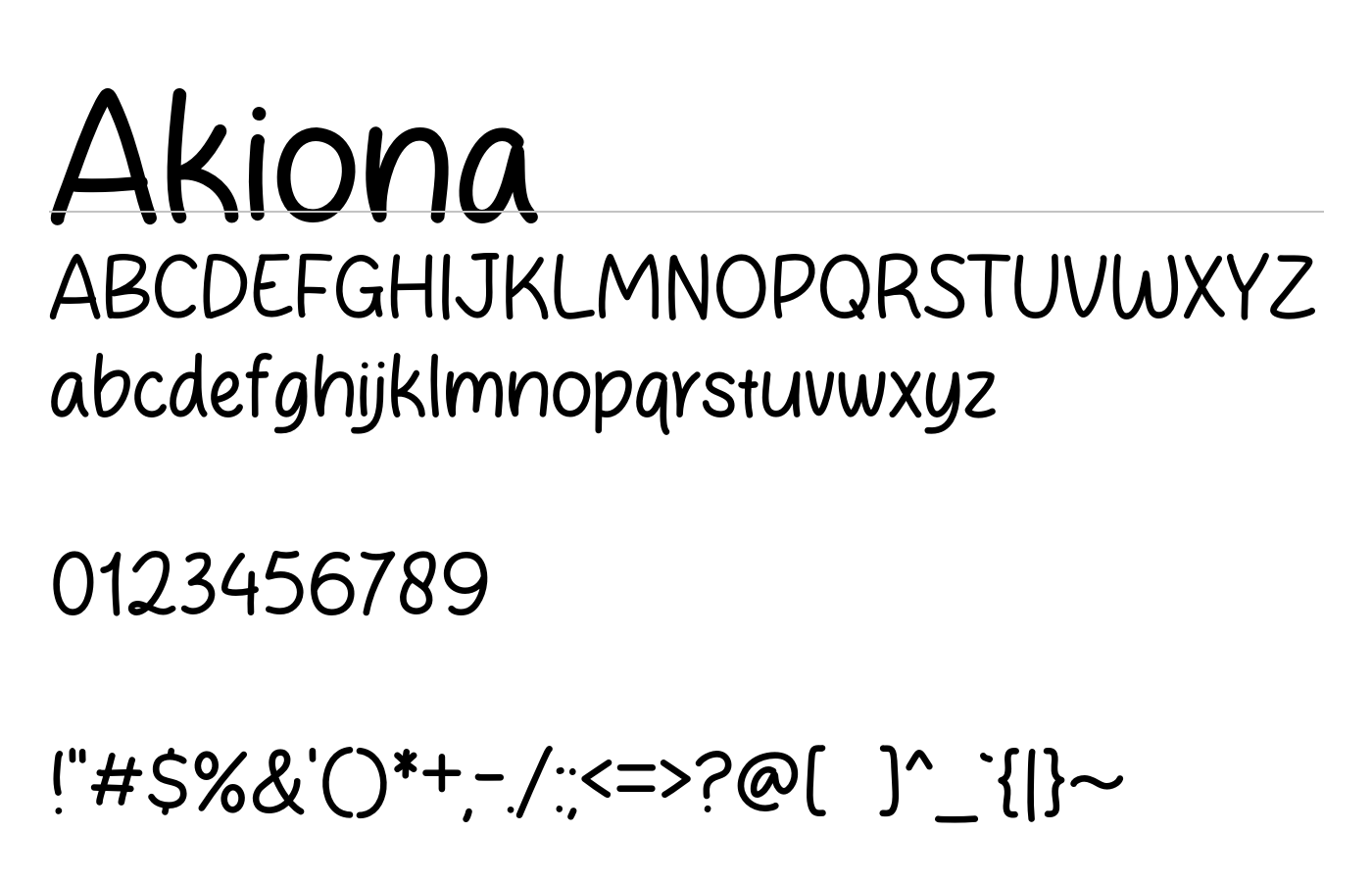
Akiona is a casual, handwritten sans-serif font with a playful and friendly character. It features rounded, slightly irregular letterforms that give it a warm, approachable feel, making it ideal for informal communication, creative projects, and branding that wants to convey a personal, human touch. Its clean stroke and clear readability also make it suitable for use in children’s materials, logos, and light-hearted editorial designs.
Akiona Font
About Akiona Font